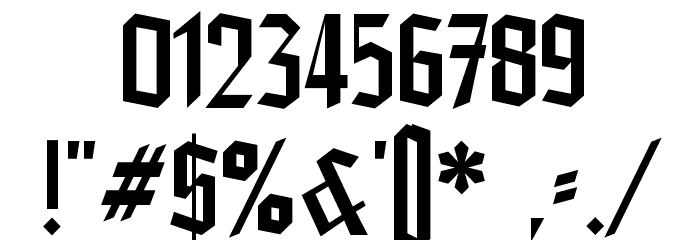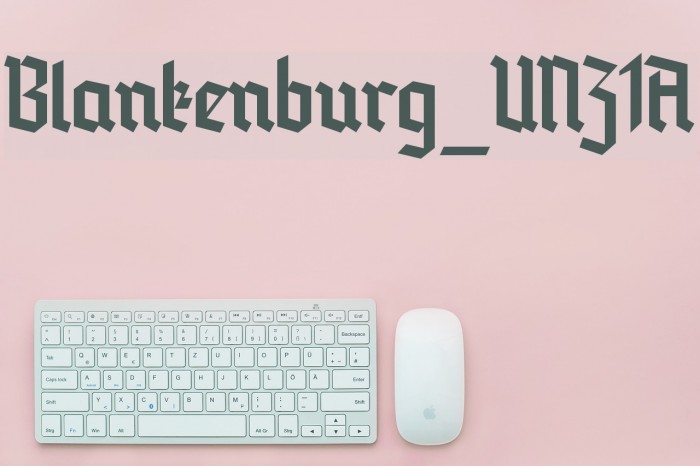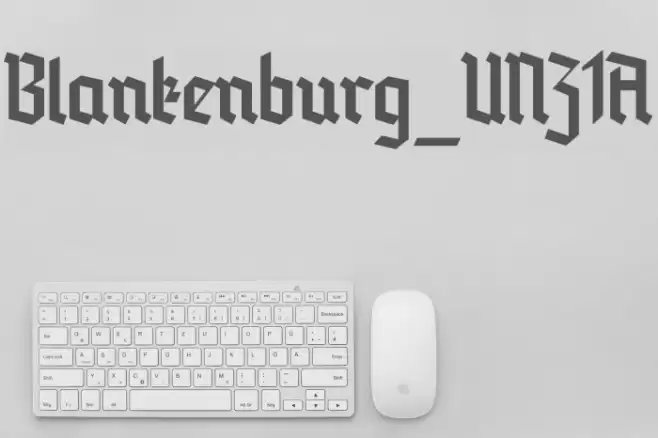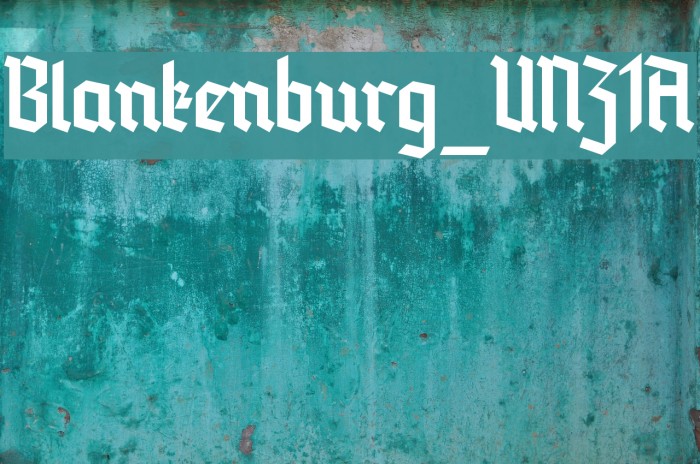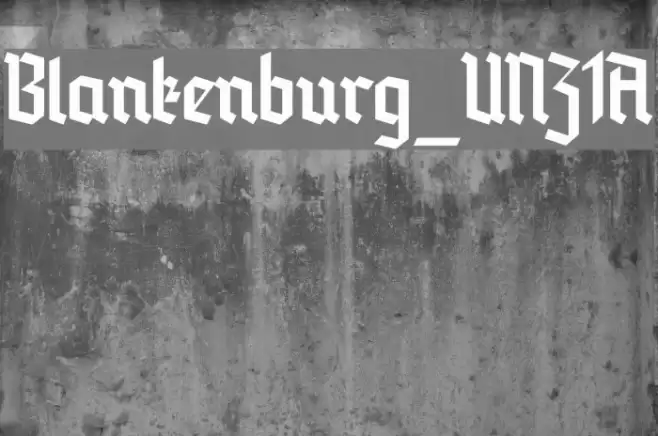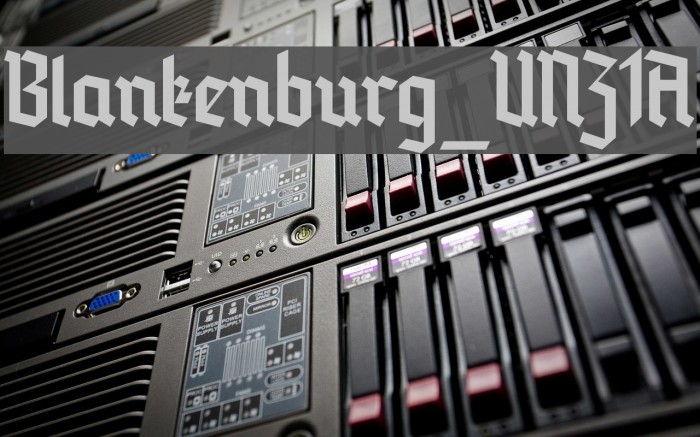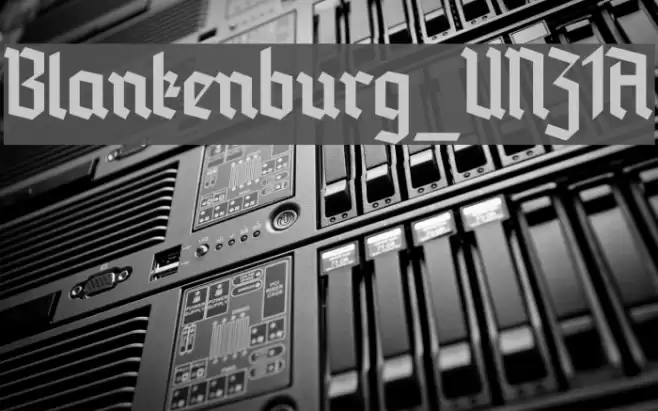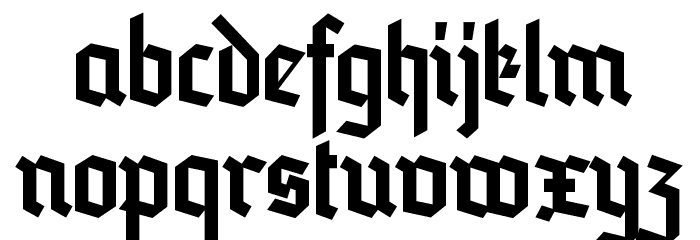
Blankenburg_UNZ1A Font
Blankenburg_UNZ1A Description
This font exhibits a bold and striking blackletter style, characterized by its sharp, angular lines and intricate detailing. The uppercase letters are particularly ornate, with dramatic flourishes and a strong vertical emphasis. The lowercase letters maintain the same angular aesthetic, offering a cohesive look across the typeface. Numerals and special characters are equally bold, ensuring consistency throughout. This font's historical and traditional appearance evokes a sense of medieval or Gothic design, making it ideal for projects that require a touch of classic elegance or a vintage feel.
| Proposed Projects | Suitable for historical or fantasy-themed designs, book covers, posters, and branding that seeks a traditional or vintage touch. |